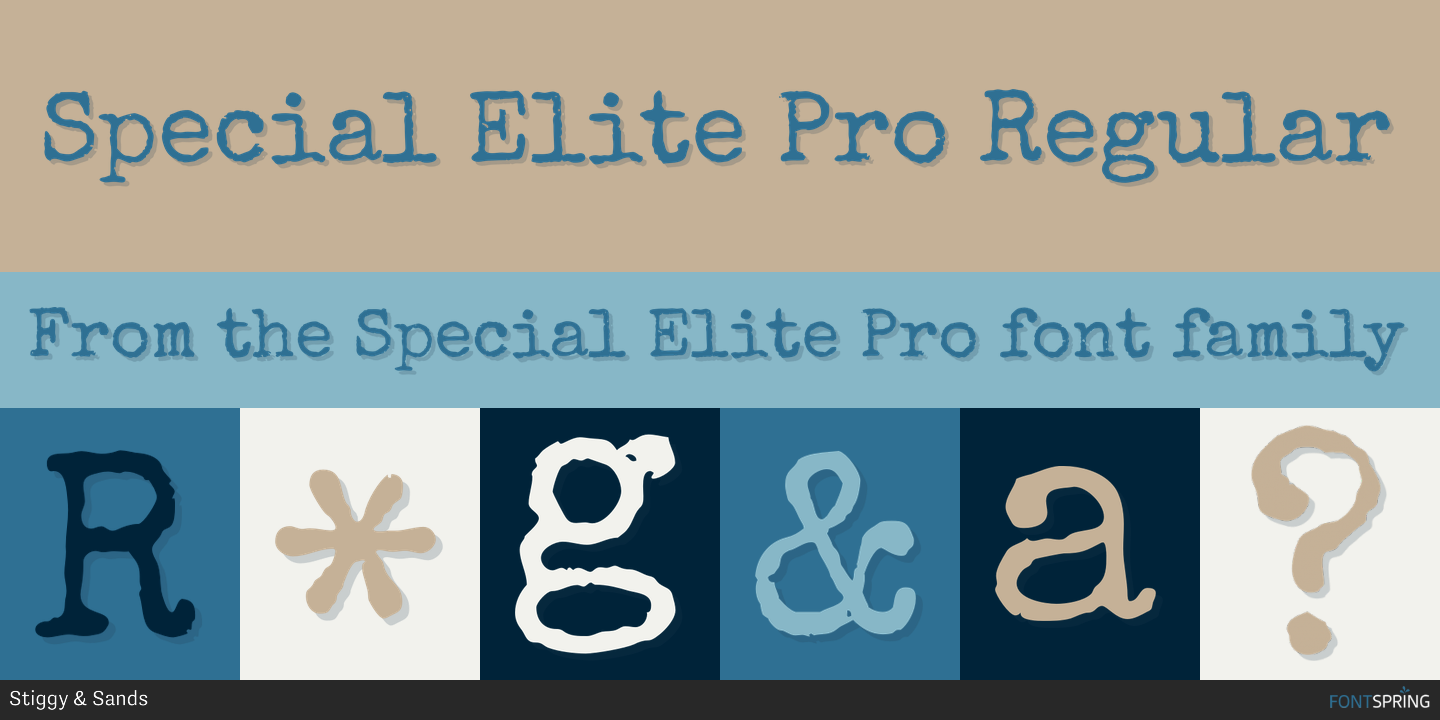
Special Elite Font Similar . Fonts similar to special elite pro, font by stiggy & sands. Catalina kimmy design 34 styles from $6.00. A little bit of inked up grunge and a little old school analog flavor. 100 free fonts alternatives to special elite regular Special elite is the combination of old school analog and vintage typewriter typeface for your website and designs. Special elite was created to mimic the smith corona special elite type no nr6 and remington noiseless typewriter models. Special elite mimics the smith corona special elite type number nr6 and remington noiseless typewriter models. What fonts are similar to special elite regular? A little bit of inked up grunge.